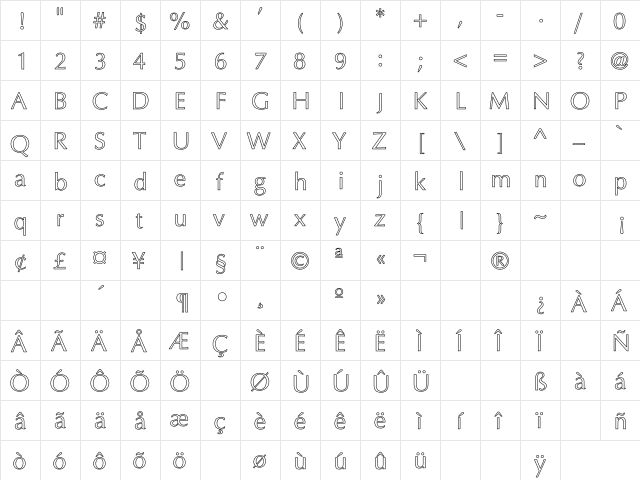
Optima Hollow Regular
Design Context for Optima Hollow Typeface
Optima Hollow offers clean, dependable letterforms without strong stylistic allegiance, making it a practical choice for designers who need flexibility.
Pro Tip: Use Optima Hollow in both headline and body roles to test its range before committing to a single application.